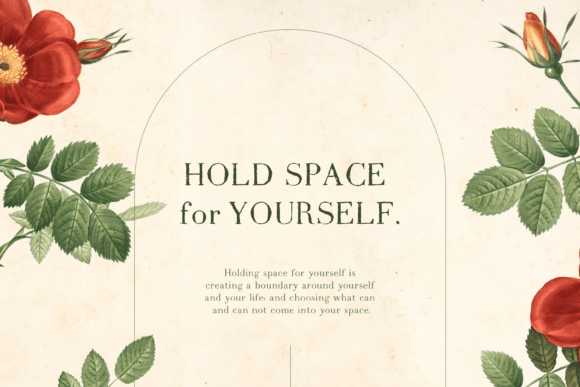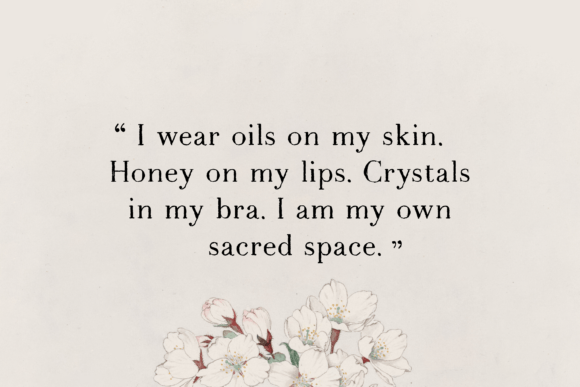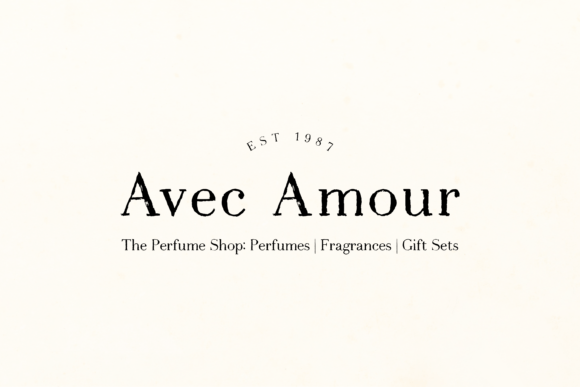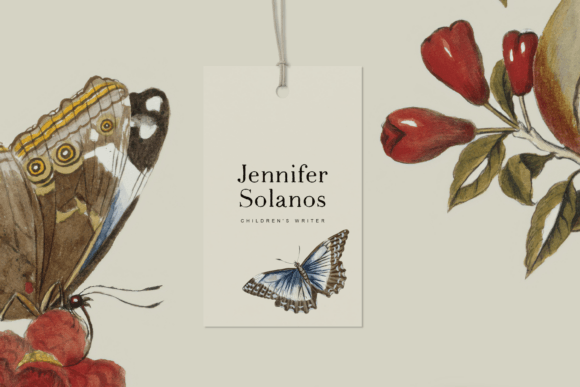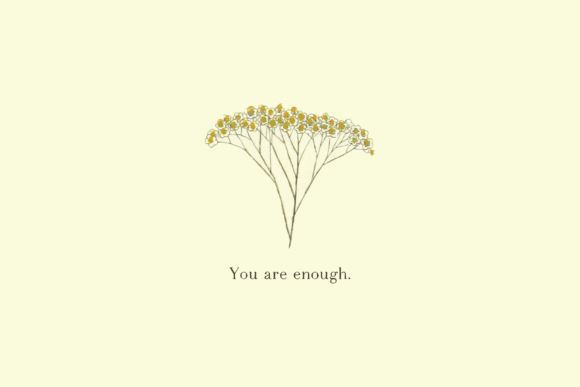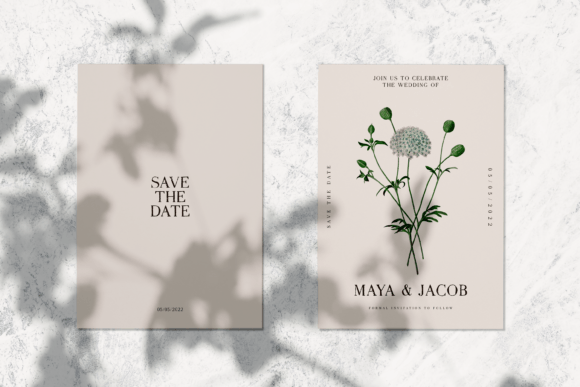
The Perfect Touch: Discovering the Impression Font
Remember that moment when you’re brainstorming ideas for your next design project and you stumble upon the perfect font? It’s like the missing piece of a puzzle falls into place, and suddenly your entire concept comes to life. For me, that moment was when I discovered the Impression Font – a charming hand-lettered font that instantly added a warm, friendly touch to my designs.
With its rustic feel and playful style, the Impression Font is perfect for creating a cozy, inviting vibe in your designs. Its simplicity and cuteness make it an ideal choice for adding a personal touch to your work. Whether you’re a graphic designer, blogger, or social media manager, the Impression Font is a valuable addition to your design toolkit.
What sets the Impression Font apart is its ability to evoke emotions and create a connection with your audience. Its friendly and approachable style makes it perfect for branding, packaging, and even social media graphics. So, if you’re looking to add a little extra charm to your designs, look no further than the Impression Font.
Impression Font Key Features
- Font Family: Impression Font is a high-end, luxurious font family with a unique, hand-painted look.
- Character Count: The font family includes over 1000 characters, including uppercase and lowercase letters, numerals, and special characters.
- Unique Characteristics: Impression Font features a unique blend of hand-painted and digital techniques, giving it a distinctive, high-end look and feel.
Impression Font Review
Overall, I think the Impression Font is a solid choice for designers looking for a modern and elegant display font. ✨ One of the things I appreciate about Impression is its versatility – it works well in a variety of contexts, from headings to titles, and even as a decorative element. ✨ The font’s subtle nuances and flowing lines give it a sophisticated feel that’s hard to resist.
However, there are some limitations to consider. ⚠️ One of the main issues I have with Impression is its limited character set. While it’s great for headings and titles, it may not be the best choice for large blocks of text, as it can be a bit fatiguing to read. Additionally, the font may not be suitable for body text in smaller sizes, as it can become difficult to read.
- Modern and elegant display font
- Works well in a variety of contexts
- Sophisticated feel with subtle nuances and flowing lines
- Limited character set
- Not suitable for large blocks of text or small body text sizes
Overall, I would recommend Impression Font to designers who are looking for a high-end display font to add some sophistication to their designs. While it may not be the best choice for large blocks of text or small body text sizes, it’s a great option for headings, titles, and decorative elements. With some careful consideration of its limitations, Impression can be a valuable addition to any designer’s toolkit.
Tips for Getting the Most Out of Impression Font
1. Use the Impression font for elegant and sophisticated designs.
2. Experiment with different font sizes and styles to achieve the desired effect.
3. Pair the Impression font with other elegant fonts for a cohesive look.
2. Luxury branding and packaging.
3. Elegant event signage and decor.